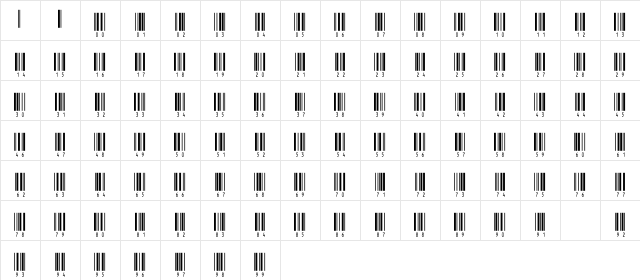
IntHrP48DlTt Normal
Design Context for IntHrP48DlTt Typeface
IntHrP48DlTt is a composed and adaptable typeface that performs quietly and consistently across a wide range of design contexts.